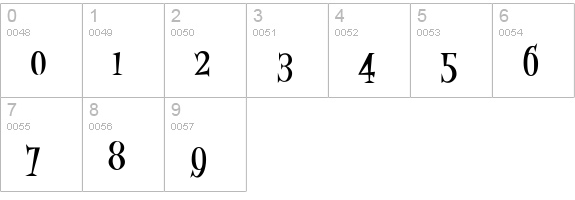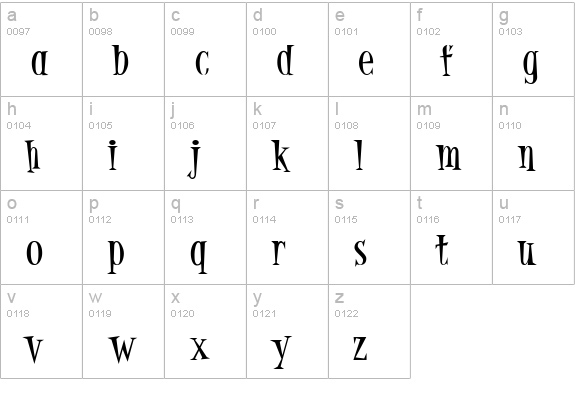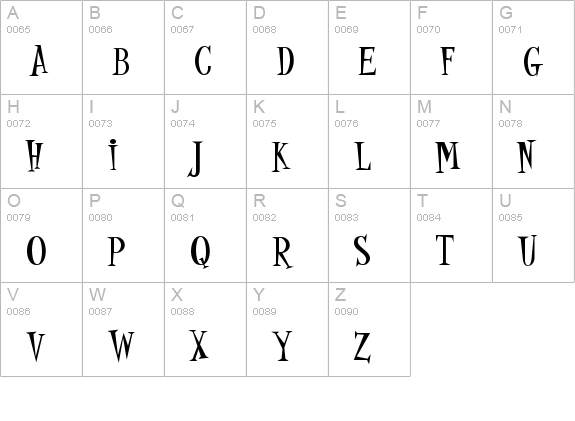
PFJump Normal is the standard, neutral variant in the PFJump typeface family \xE2\x80\x94 well suited to general body text, paragraphs, and standard typographic work.
PFJump Normal font is a versatile and modern typeface that exudes style and sophistication. With its clean lines and sleek design, this font is perfect for a wide range of projects, from logos to web design. The balanced proportions and elegant curves of PFJump Normal make it a timeless choice for any design need. Best of all, PFJump Normal font is available for free download at FontsMarket.com. This means that you can easily access this high-quality font without any cost, making it a valuable addition to your design toolkit. Whether you're a professional designer or a hobbyist looking to enhance your projects, PFJump Normal font is sure to impress with its versatility and quality. Download it today and take your designs to the next level!